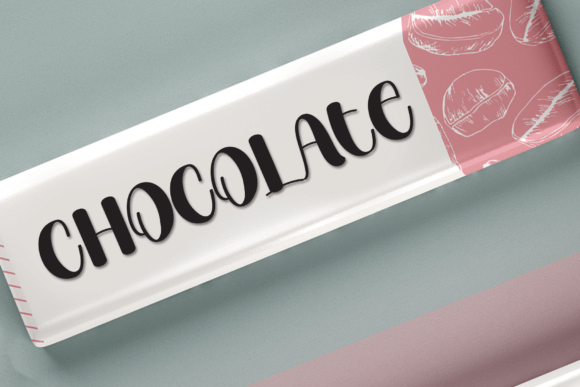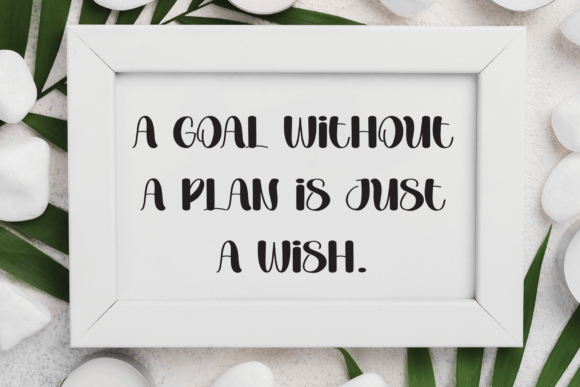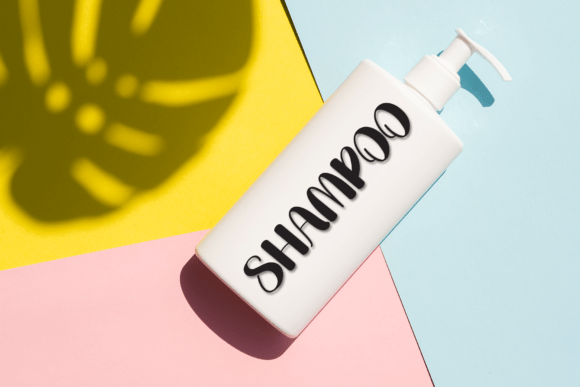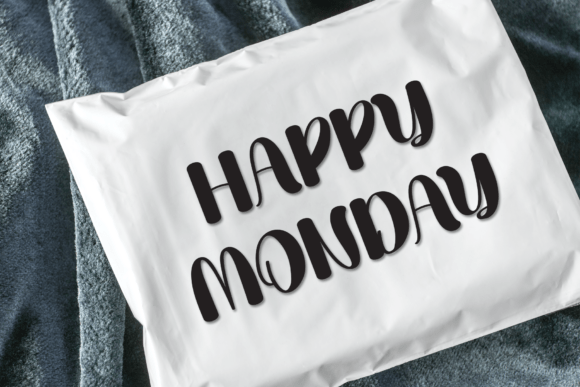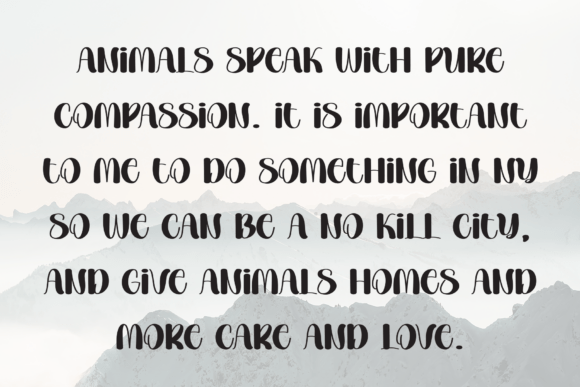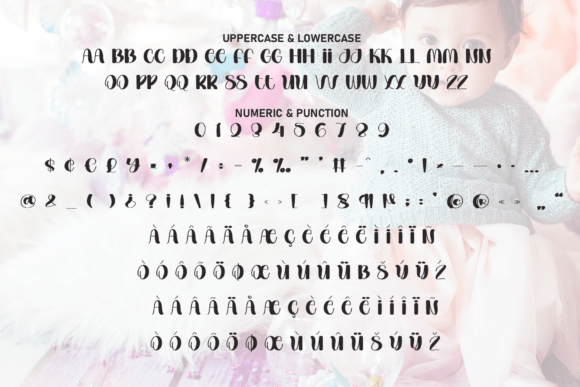
Discover the Perfect Summer Vibes with Baby Disney Font
As a designer, have you ever been stuck on a project, trying to capture the essence of a carefree summer day? You know, that feeling when the sun is shining bright, and all you want to do is grab a cold drink and relax by the beach? That’s exactly the vibe you can achieve with the Baby Disney Font.
This delightful display font is designed to bring a smile to your face and a spring to your step. With its clean lines and easygoing feel, Baby Disney Font is perfect for summer posters, event flyers, and playful branding. Whether you’re creating a beach-themed invitation or a fun advertisement, this font is sure to add a breezy, laid-back feel to your project. As a designer, you’ll love the versatility of Baby Disney Font, which makes it a valuable addition to your creative toolkit.
Baby Disney Font Key Features
- Unique Characteristics: Distinctive rounded shapes and playful curves, reminiscent of Disney’s classic style, perfect for children’s content and family-friendly projects
Baby Disney Font Review
The Baby Disney Font is a playful, cursive script font that immediately captures the essence of the Disney brand. ✨ It’s perfect for creating a whimsical and childlike atmosphere in various design projects, from greeting cards to children’s book covers. The font’s elegant, flowing lines evoke a sense of nostalgia and wonder.
- ✨ Unique, Disney-inspired design that stands out from more generic fonts
- ✨ Suitable for a wide range of design projects, including children’s content and nostalgic-themed designs
- ✨ Elegant, cursive script that adds a touch of sophistication to designs
- ⚠️ Limited legibility in small font sizes, making it challenging to read at close distances
- ⚠️ May not be suitable for formal or professional designs due to its playful nature
Overall, the Baby Disney Font is a delightful addition to any designer’s toolkit. While it may have some limitations, its unique design and versatility make it a great choice for projects that require a touch of whimsy and nostalgia. With proper usage, this font can elevate designs and leave a lasting impression on audiences.
Some common use cases for the Baby Disney Font include:
Children’s party invitations and decorations
Children’s book covers and illustrations
Wedding invitations and decorations
General design projects that require a playful and whimsical touch
For tips on getting the most out of the Baby Disney Font, try experimenting with different font sizes, colors, and combinations with other fonts to achieve a unique and eye-catching design.